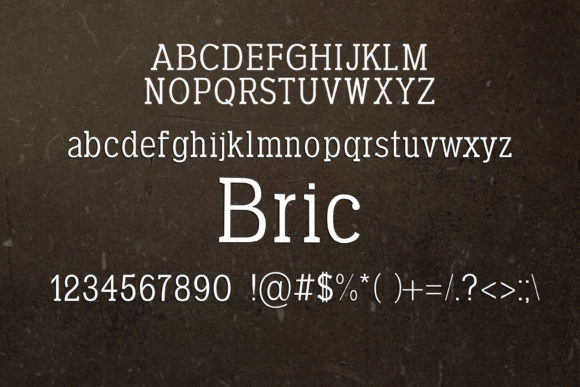
Bric Font: A Friendly and Modern Serif Font with a Classic Style
Bric is a beautiful, friendly, and modern serif font that exudes a classic style, making it perfectly suited for a wide variety of projects. Whether you’re a designer, craftsperson, or simply someone who appreciates the art of typography, Bric Font is sure to capture your heart. In this article, we’ll delve into the world of Bric Font, exploring its features, benefits, and uses, as well as provide tips and inspiration for incorporating it into your creative endeavors.
The Characteristics of Bric Font
Bric Font boasts a unique blend of modernity and classic elegance, making it an exceptional addition to any design or crafting project. Its serif style is reminiscent of traditional typography, while its clean lines and rounded edges give it a fresh, contemporary feel. The font’s friendly and approachable nature makes it perfect for use in a variety of applications, from digital media to print materials.
Key Features of Bric Font
- Classic style with a modern twist: Bric Font combines the timelessness of serif typography with a modern, fresh feel.
- Clean lines and rounded edges: The font’s smooth lines and rounded edges give it a friendly and approachable appearance.
- High legibility: Bric Font is designed to be easy to read, making it perfect for use in body text, headings, and titles.
- Versatile: Bric Font can be used in a wide range of projects, from digital media to print materials, and from elegant designs to more playful applications.
Benefits of Using Bric Font
So, why choose Bric Font for your next project? Here are just a few benefits of using this beautiful font:
- Adds a touch of elegance: Bric Font’s classic style and clean lines make it perfect for adding a touch of sophistication to your designs.
- Improves readability: The font’s high legibility ensures that your text is easy to read, making it perfect for use in body text and other applications where clarity is key.
- Enhances creativity: Bric Font’s unique blend of modernity and classic style makes it a versatile font that can be used in a wide range of creative applications.
Using Bric Font in Your Projects
So, how can you use Bric Font in your designs and crafting projects? Here are a few ideas to get you started:
- Digital media: Use Bric Font in your website designs, social media graphics, and digital marketing materials to add a touch of elegance and sophistication.
- Print materials: Bric Font is perfect for use in print materials such as brochures, flyers, and business cards.
- Crafting projects: Use Bric Font to add a personal touch to your crafting projects, such as handmade cards, gift tags, and scrapbooking pages.
Tips for Getting the Most Out of Bric Font
To get the most out of Bric Font, here are a few tips to keep in mind:
- Experiment with different sizes and styles: Bric Font looks great in a variety of sizes and styles, so don’t be afraid to experiment to find the perfect look for your project.
- Pair it with other fonts: Bric Font pairs well with a variety of other fonts, so try combining it with other fonts to create a unique and interesting look.
- Use it consistently: To create a cohesive look, use Bric Font consistently throughout your project.
In conclusion, Bric Font is a beautiful, friendly, and modern serif font with a classic style that is perfectly suited for a wide variety of projects. Its unique blend of modernity and elegance makes it a versatile font that can be used in everything from digital media to print materials and crafting projects. With its high legibility, clean lines, and rounded edges, Bric Font is sure to capture your heart and add a touch of sophistication to your designs.